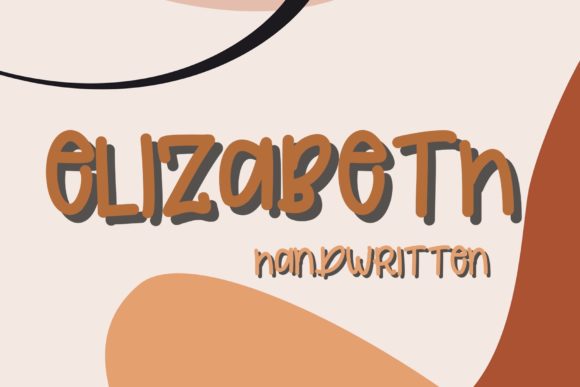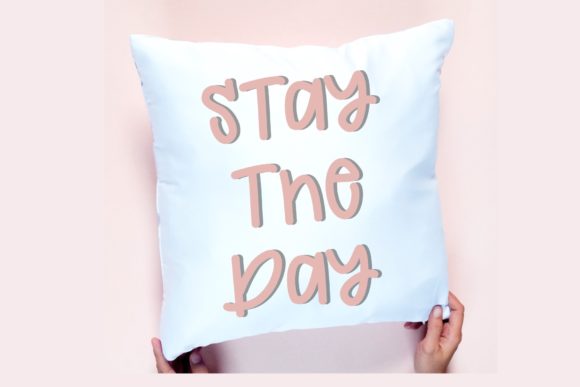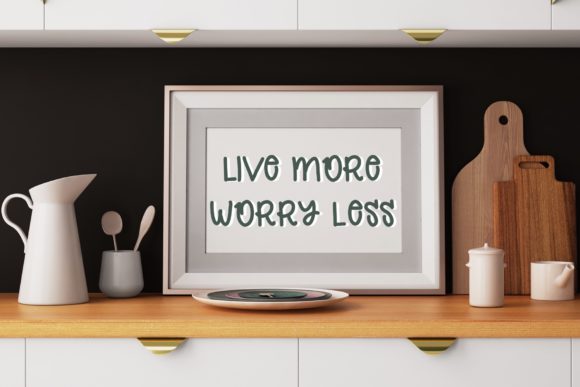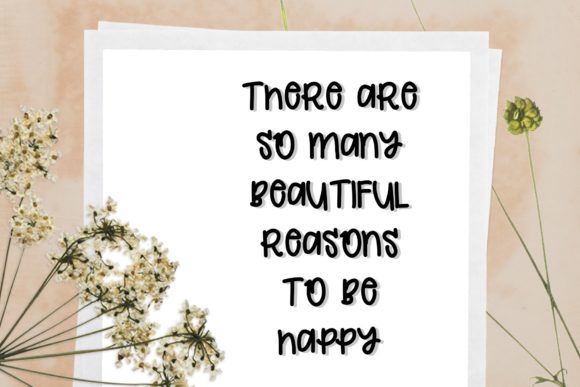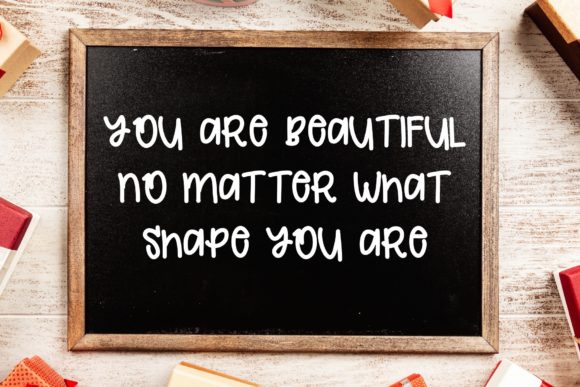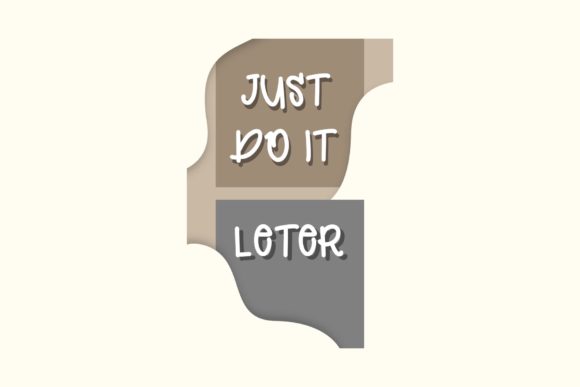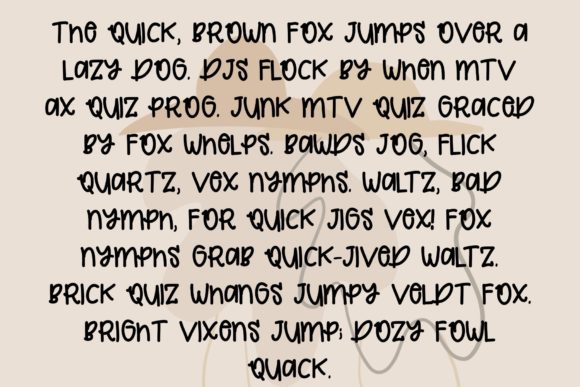
Elizabeth Font
About Elizabeth Font
Elizabeth is a sweet and beautiful handwritten font. Fall in love with its incredibly versatile style and use it to create spectacular designs!